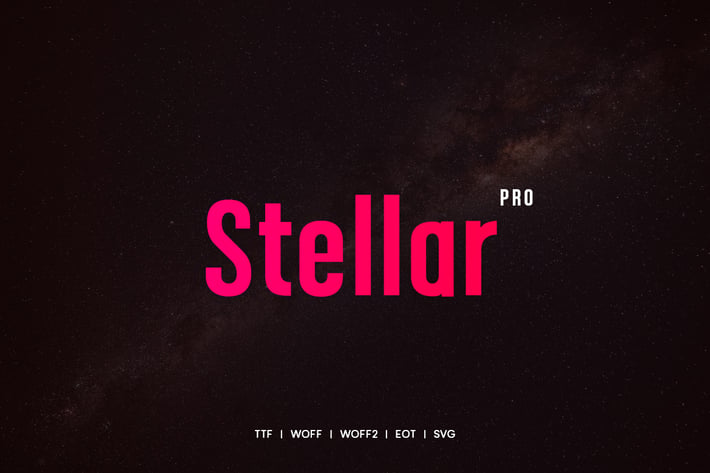
Stellar - Modern Typeface + WebFonts
Stellar Sans Typeface
Another modern fantastic sanserif typeface from Unbranded, which delivers a remarkable unique typography style. The pack includes OTF, TTF and Web Fonts (all EOT, SVG, TTF, WOFF included).
Font Designed and Crafted by Tom Bosco, Distributed by Webhance Studio.